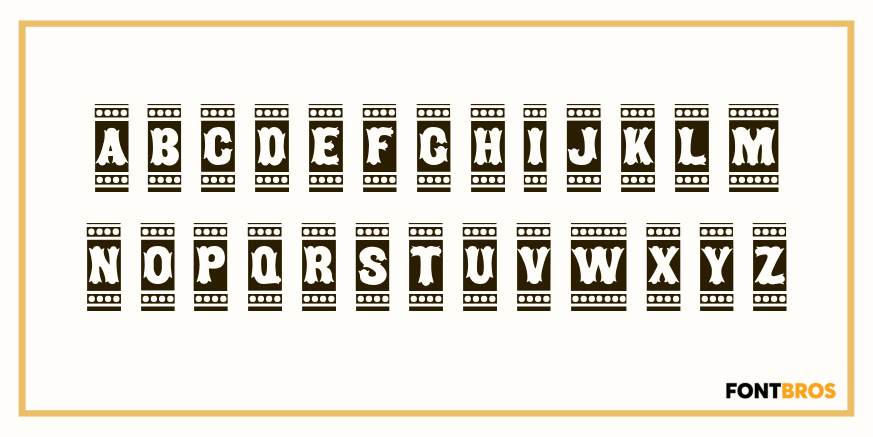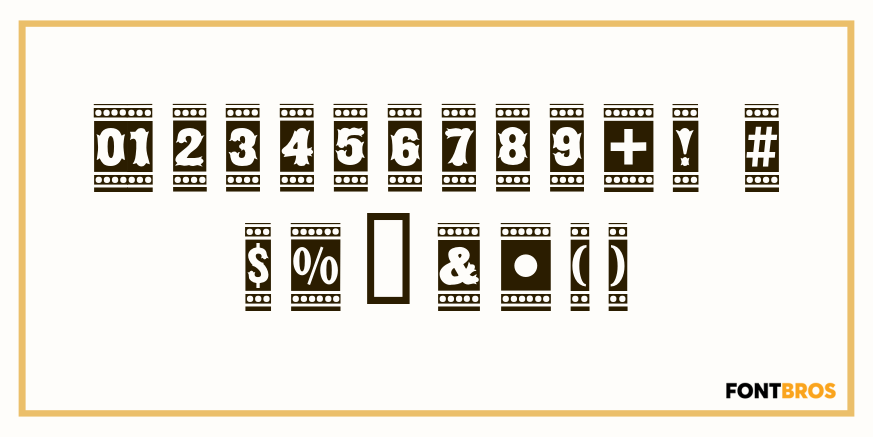
Cigar Label
Font Family by Solotype
This font was inspired by the embossed lettering on cigar boxes. The letters, or entire words, are often surrounded by raised dots, and that was our idea here. We drew this about 1997, and have been refining it ever since.
All letters are on the lowercase keyboard; the end pieces and spaces are on the caps.